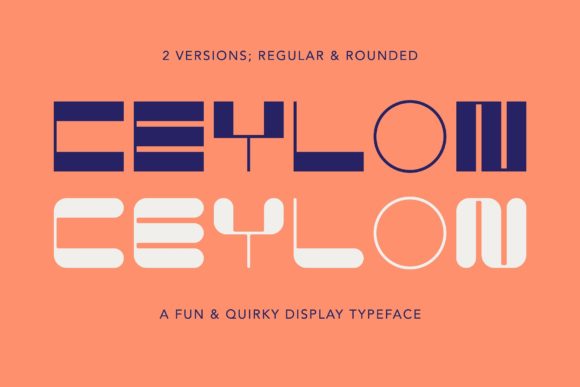
Introducing Ceylon Font: The Dynamic Duo for Unforgettable Designs
In a world of ordinary fonts, Ceylon Font emerges as a vibrant and captivating display font duo, ready to elevate your designs to new heights. As a creation of DesignByPlatform, Ceylon Font boasts a captivating combination of a regular and rounded version that work in perfect harmony, offering endless possibilities for flexible and consistent usage.
With its playful and quirky personality, Ceylon Font adds a touch of fun and excitement to any project. Whether you're creating high-impact graphics, eye-catching editorials, or alluring social media posts, Ceylon Font empowers you to deliver messages with a distinct and unforgettable flair.
Dive into the realm of Ceylon Font and explore its boundless versatility. Its regular version exudes a classic charm, while its rounded counterpart brings a touch of softness and playfulness. Mix and match these variations seamlessly to create striking headlines, captivating body text, and distinctive logos that demand attention.
Unleash your creativity and embark on a typographic adventure with Ceylon Font. Its user-friendly nature makes it an ideal choice for both seasoned designers and creative enthusiasts alike. Let your imagination soar as you craft designs that spark joy, provoke thought, and leave a lasting impression on your audience.
Don't settle for ordinary fonts that blend into the background. Embrace the extraordinary with Ceylon Font and set your designs apart from the mundane. Experience the thrill of creating visuals that resonate with your audience and leave them craving for more.